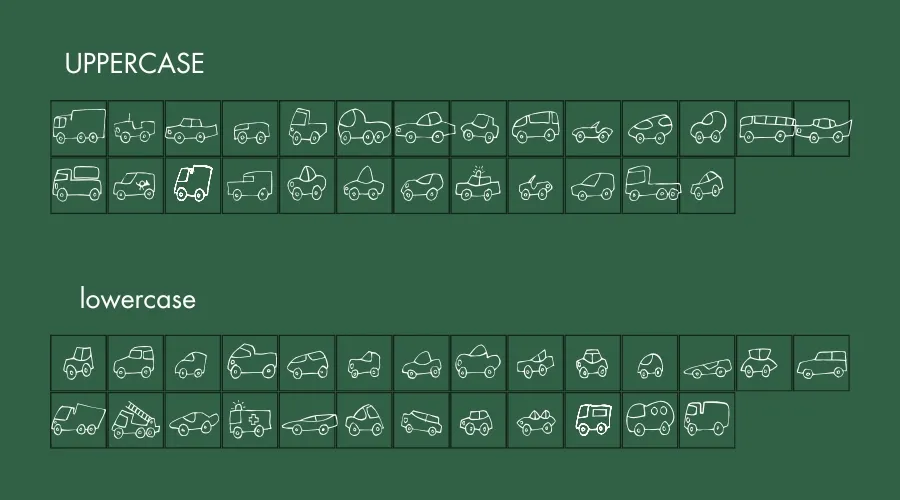
Fantastique Cars Font
About Fantastique Cars Font
Fantastique Cars Font is created by Font Environment it belongs to the dingbat category there are differences in the characteristics of the font because it has car symbols in its design.
Using this font style design with other fonts will make your project designs unique and eye-catching. when you customize this font with care pack font of the same category or by using the group of the font, you will enhance your project.
In addition to bold editorial statements and graphic heavy prints, this font can also be used as a simple logo and simple branding.
The texture is suitable for many different designs, such as websites, posters, banners, brochures, and pamphlets. This typeface is also perfect for gifs, animations, game designs, and other digital designs. When you use this typeface in your designs, it can give stunning results.
Wedding cards and party invitations are among some of the most popular uses for this typeface among professional designers. This font is very close to the tiki font.
When you use this lettering style according to your project requirements, you will get great results. This typeface can be used in several different ways.
Use this typeface for creating awesome headers, logos, posters, banners, magazine covers, invitations, web design, game design, and watermarks.
What typeface does Fantastique Cars Font use?
The font belongs to the dingbat typeface group. There are a lot of things you can do with this font.
Who designed the Fantastique Cars Typeface?
Fantastique Cars Font is created by Font Environment it belongs to the dingbat category. The design can be used to create cartoon series specifically.